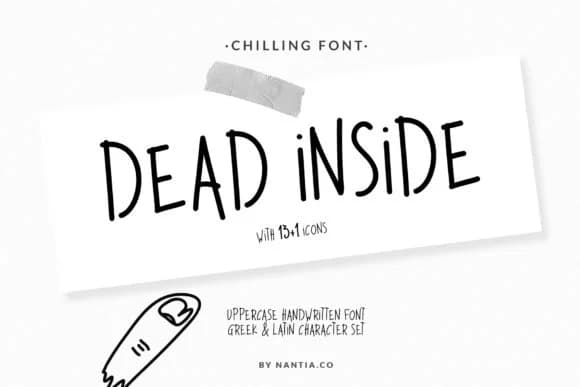
1 / 8About Dead Inside Font
Dead Inside strips away the mechanical precision you'd expect from digital type and instead captures that genuine, unfiltered quality of a child's pen on paper. Designed by nantia, this script-handwritten typeface celebrates imperfection as its strength, with letters that feel spontaneous and honest rather than polished. Beyond the letters themselves, the font includes a companion set of icons that adds visual personality and lets you build cohesive designs without hunting for separate symbol libraries.
This typeface shines for work that needs authenticity when addressing younger audiences or embracing a deliberately unpretentious voice. Children's book page layouts feel warmer and more engaging with this handwriting style, and the same goes for birthday party invitations and classroom activity sheets where genuine character matters. You'll also find it works beautifully for handmade product labels, scrapbooking spreads, and DIY craft signage, where an imperfect, handwritten aesthetic reads as intentional rather than careless.
Dead Inside is built for designers and parents who value charm over polish, who need lettering that looks like it came from a real hand rather than an algorithm. It's equally at home in personal projects and professional work where that handcrafted quality adds real value. Grab it on Creative Fabrica and start bringing authentic, youthful energy to your next design.
Dead Inside Font is a script font that shines as a display or heading face. Pair it with a clean sans-serif or serif font for body text β the contrast creates a clear hierarchy while the two styles stay balanced and easy to read.
Dead Inside Font
by nantia